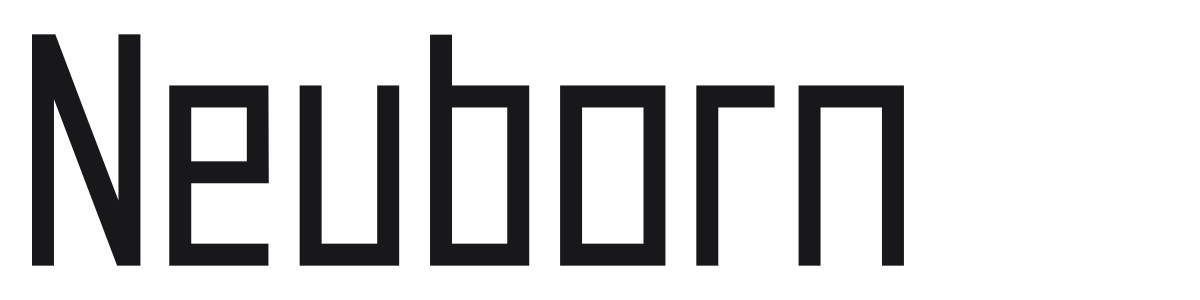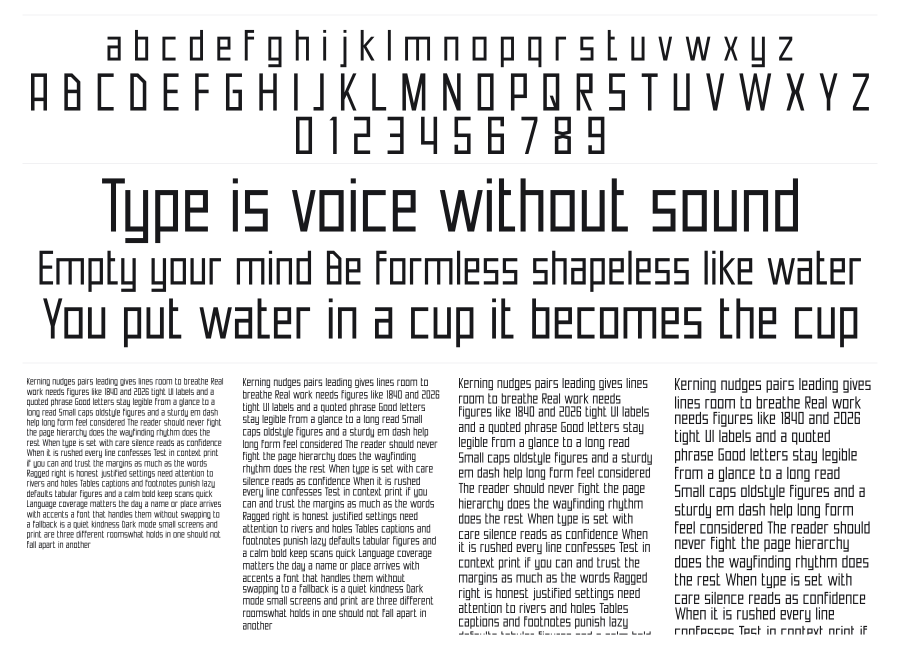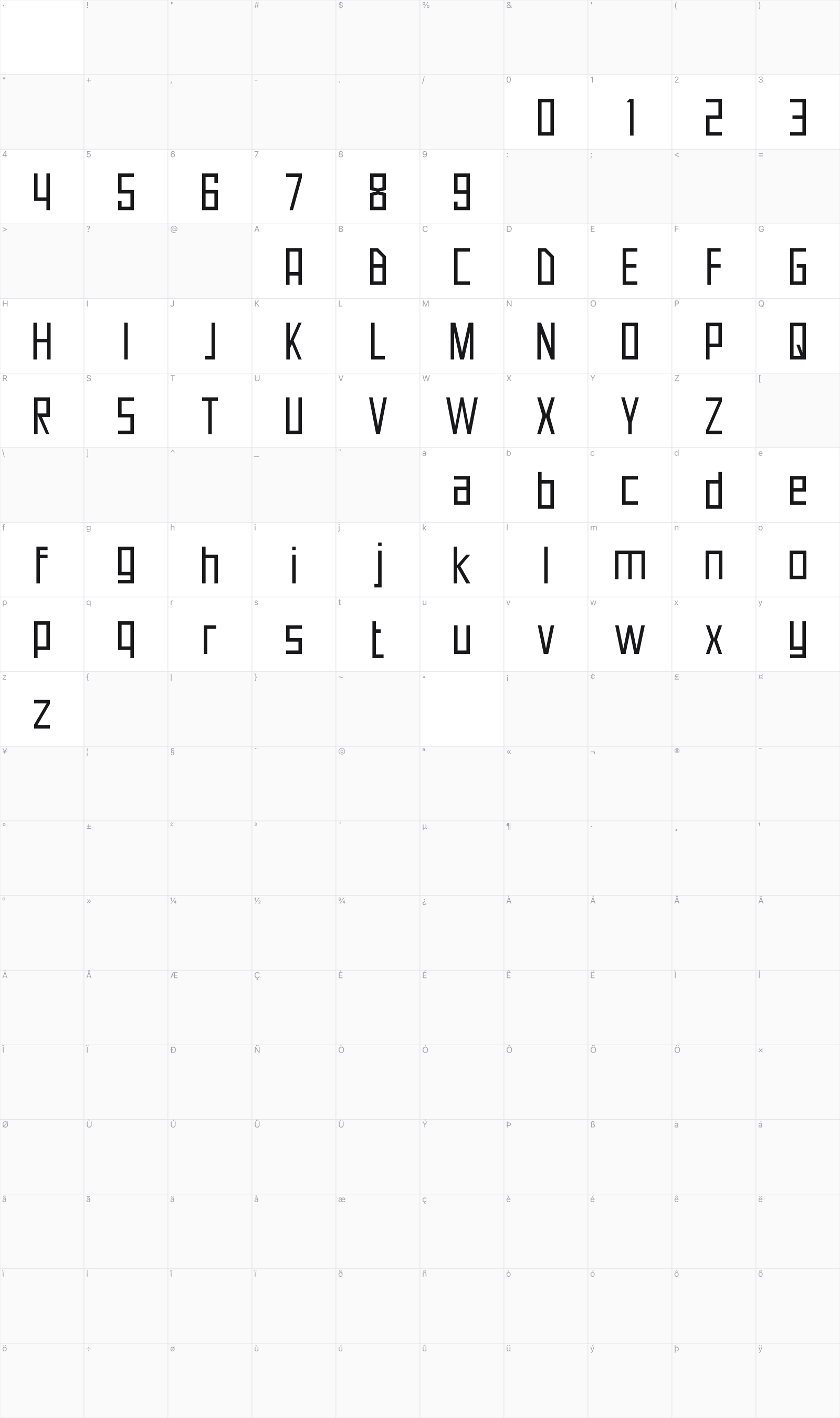
Neuborn
Neuborn is a geometric square sans-serif built on a strict modular grid, where every curve resolves into right angles and every stroke carries equal weight. The result is a clean, almost architectural precision that feels contemporary without being cold. Strong in logo work, headlines, and anywhere a modern technical voice is needed.